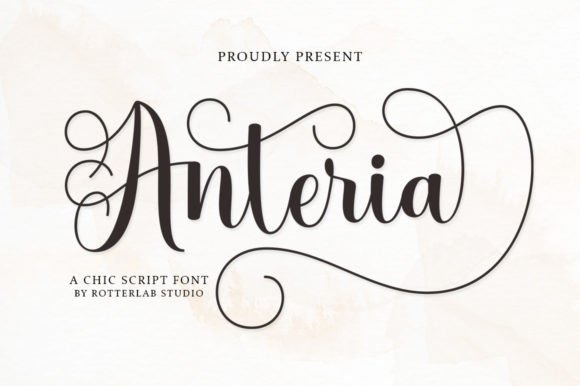
Dive into the realm of luxury and refinement with Anteria Script, the epitome of romance and elegance. This captivating script font, crafted with care and precision, will elevate your designs to new heights of sophistication. Its delicate strokes and graceful curves intertwine seamlessly, creating a sense of continuity and fluidity that is simply breathtaking.
Anteria Script is more than just a font; it's an expression of timeless beauty. Its fine details and subtle embellishments exude a charm that is both captivating and enchanting. Each letterform is a work of art, meticulously crafted to convey a sense of elegance and sophistication. Whether you're creating wedding invitations, branding materials, or social media graphics, Anteria Script will add a touch of magic to your designs.
Unleash your creativity with Anteria Script's versatility. Its PUA encoding allows you to effortlessly access a treasure trove of delightful glyphs and swashes, giving you endless opportunities for customization. Experiment with different combinations to create unique and eye-catching designs that will leave a lasting impression.
Anteria Script is the perfect choice for designers who seek to create an emotional connection with their audience. Its delicate beauty and romantic charm will evoke a sense of longing and desire, making your designs irresistible. Whether you're a seasoned professional or just starting out, Anteria Script will take your designs to the next level.
So, embark on a creative journey with Anteria Script and experience the transformative power of beauty and elegance. Let your designs speak volumes, capturing hearts and captivating imaginations. Indulge in the luxury of Anteria Script and elevate your designs to new heights of sophistication.